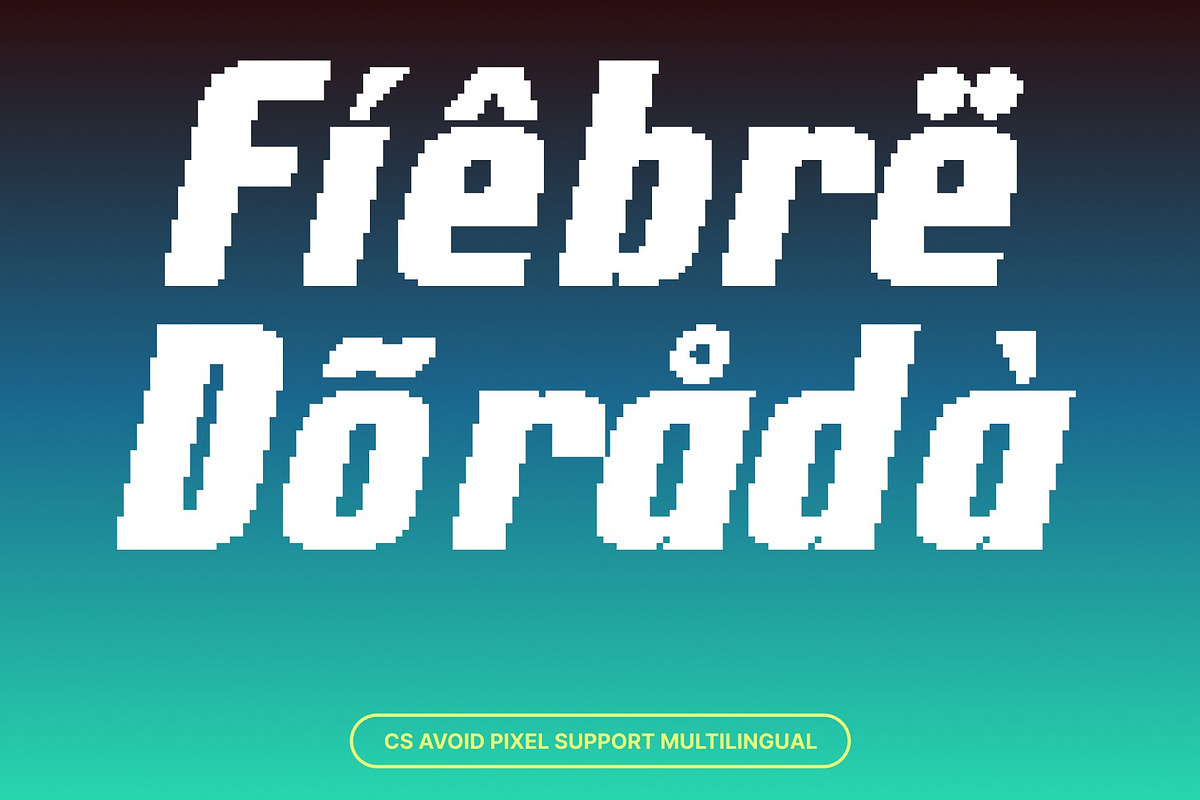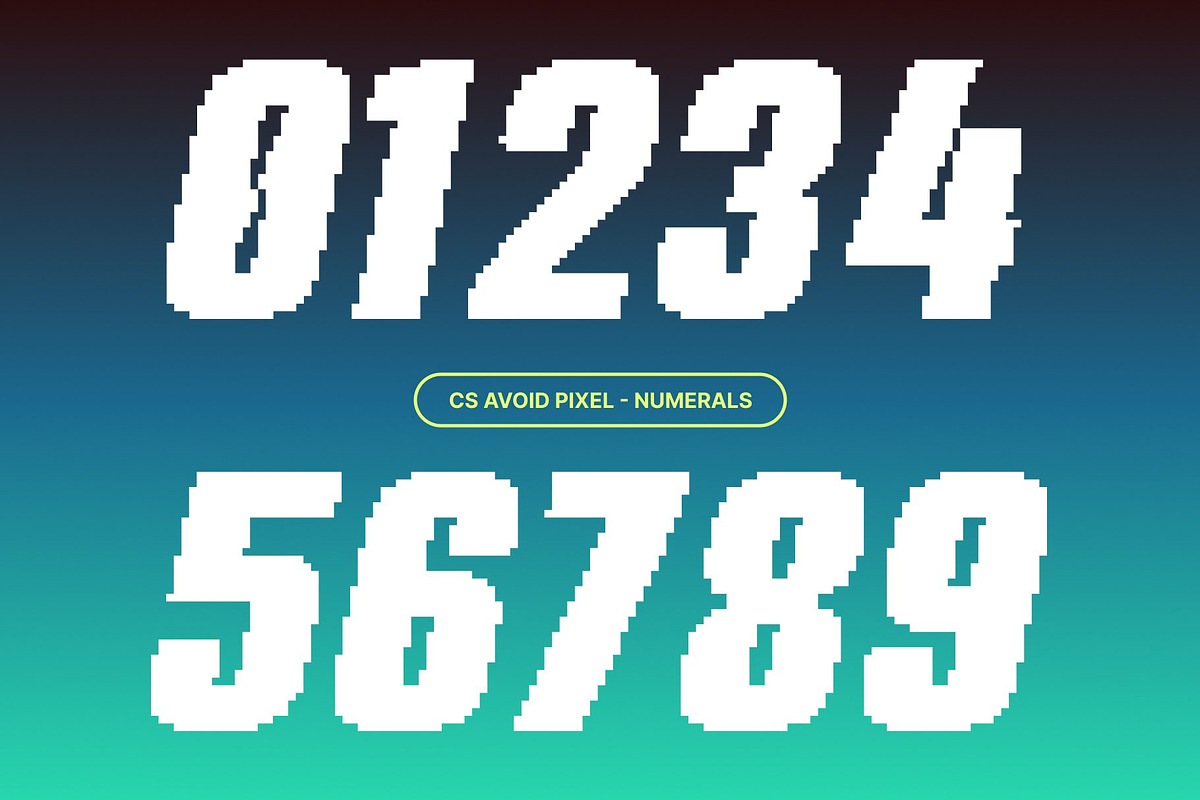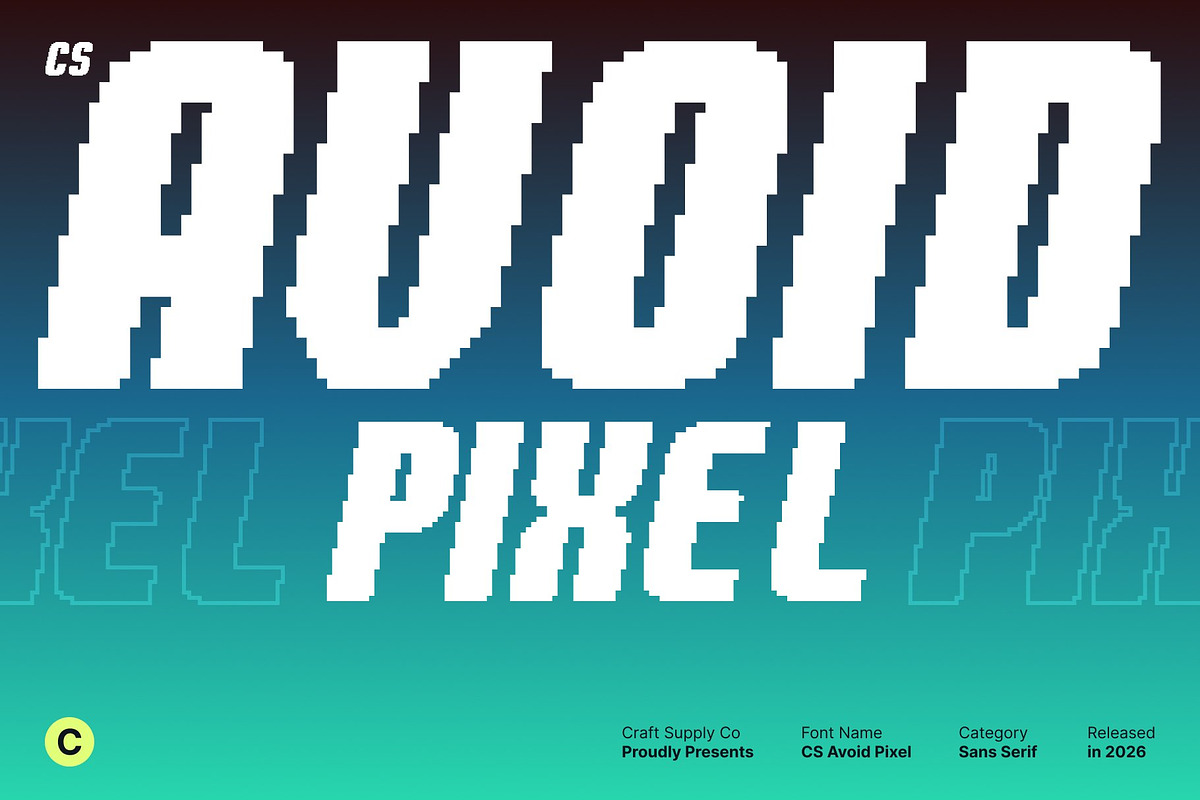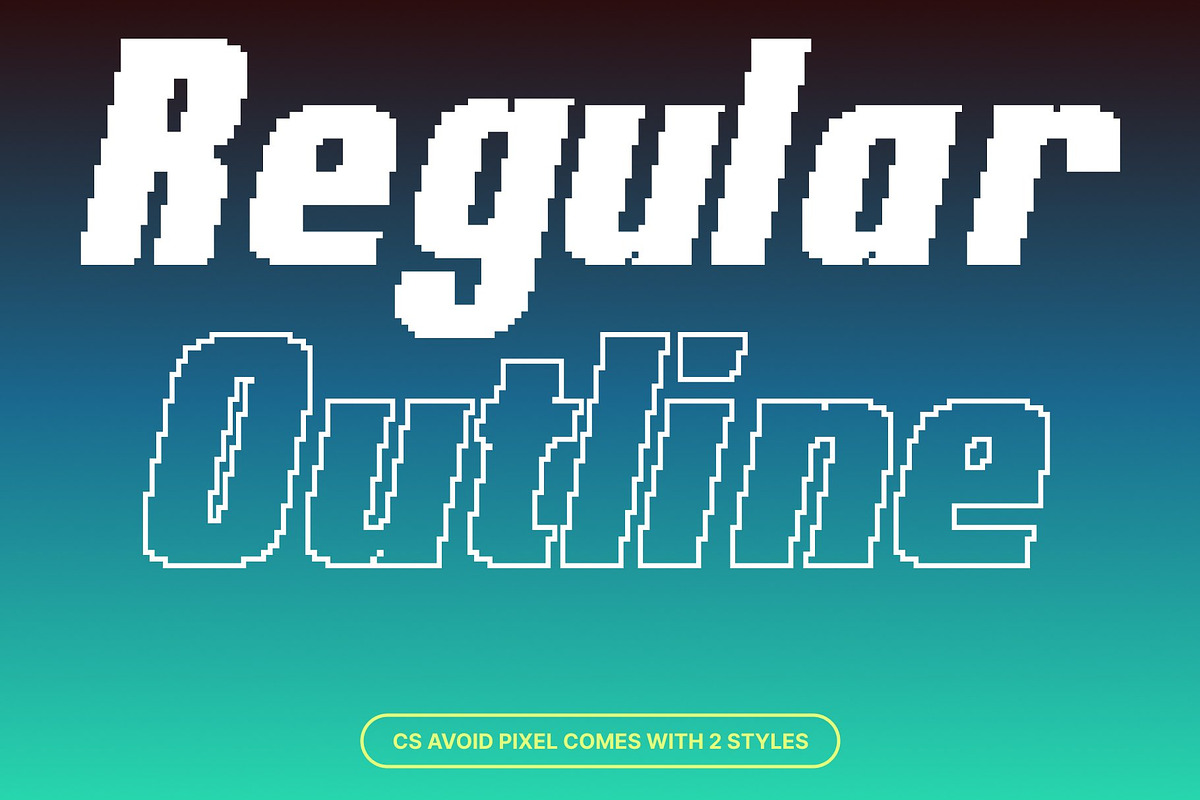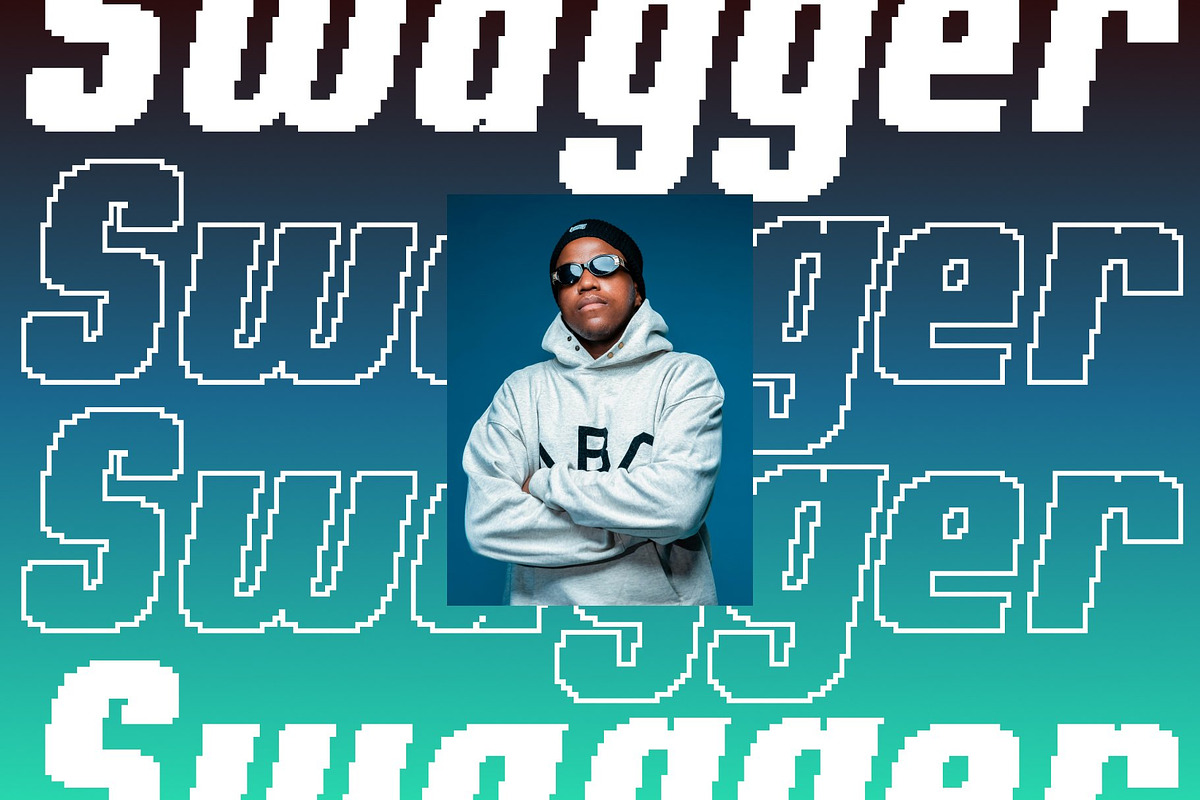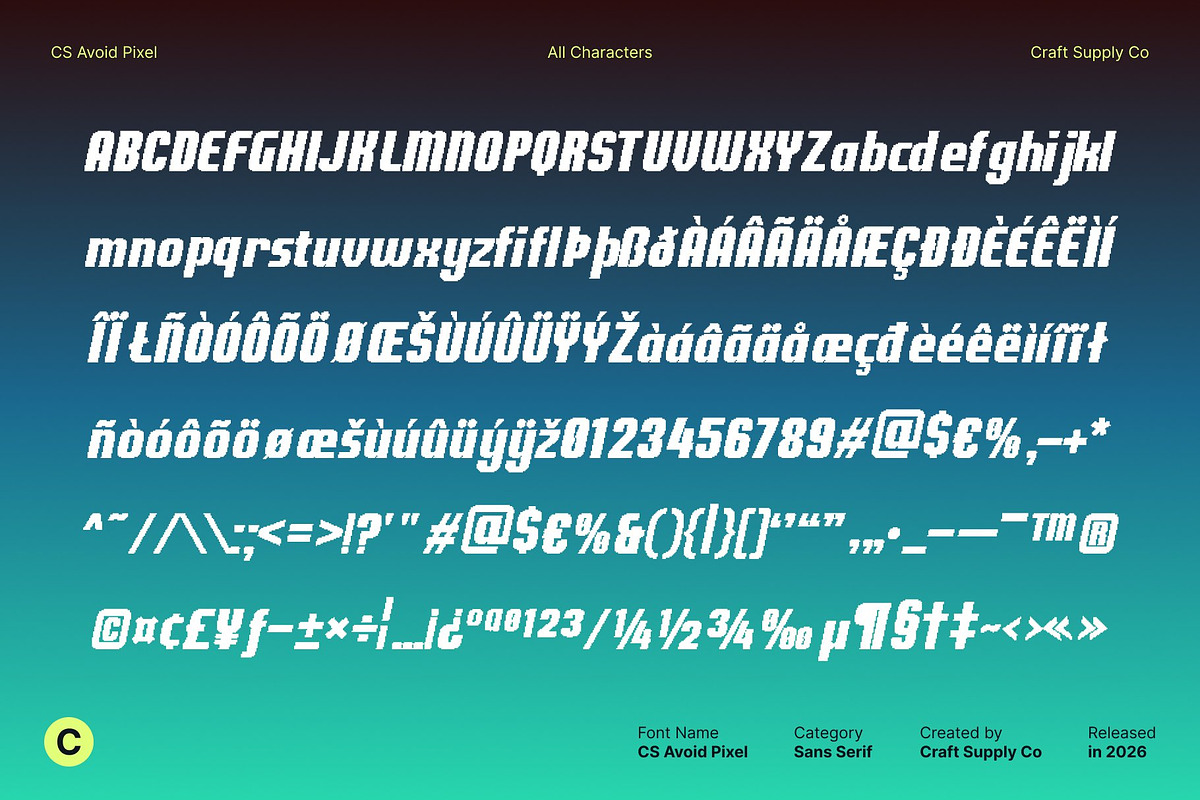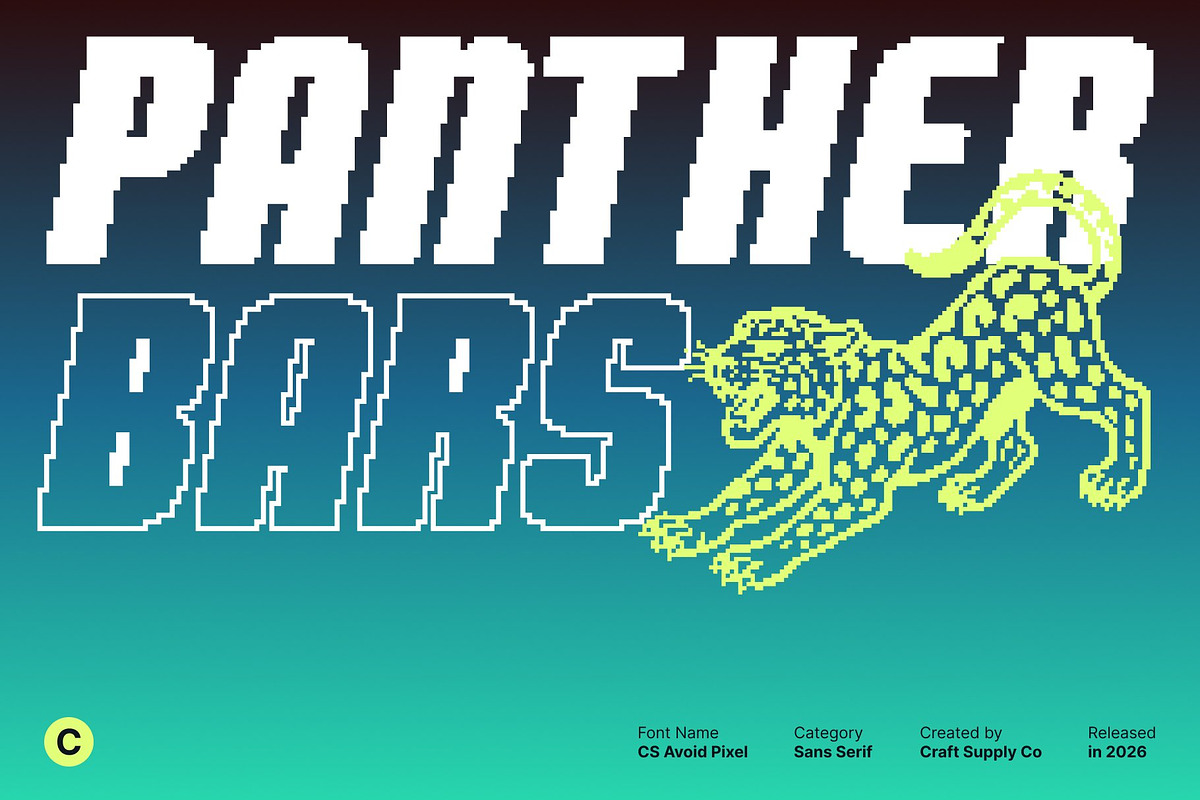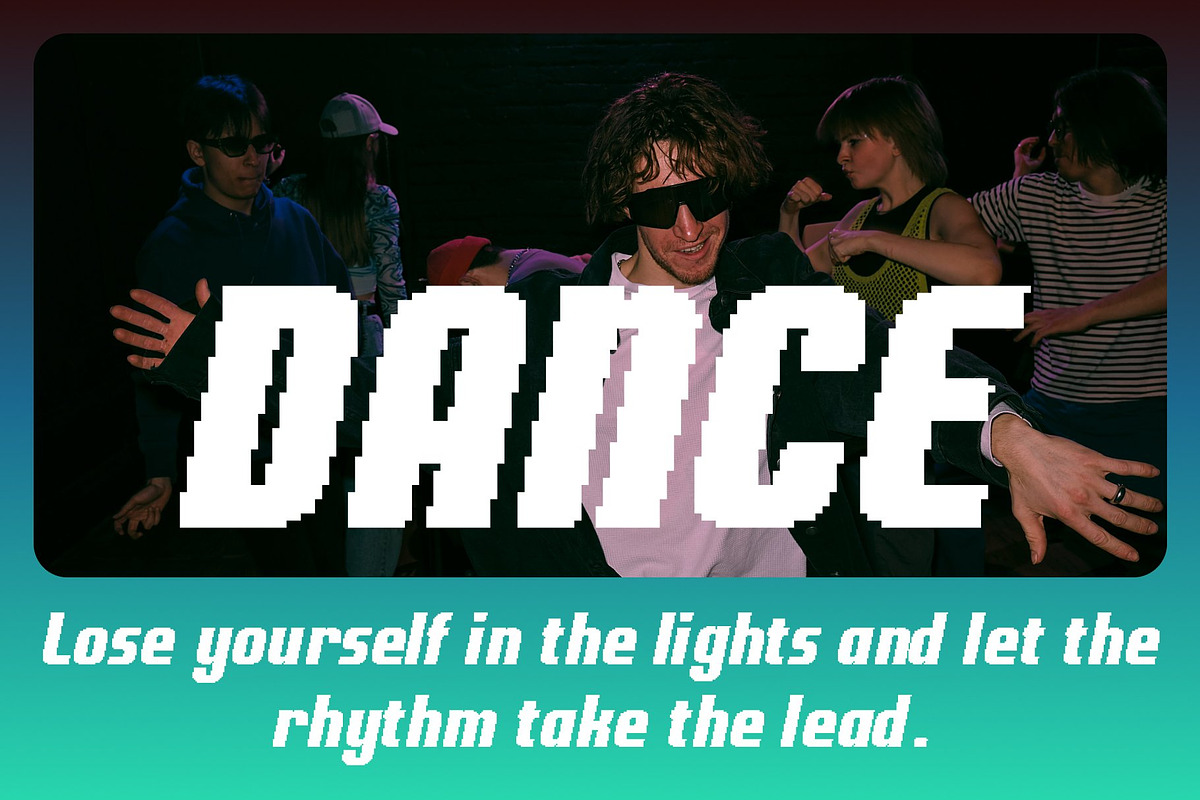
CS Avoid Pixel
CS Avoid Pixel – Condensed Sans Serif Font: Maximum Impact, Minimal Space
Condensed Strength with Digital Pixel Character This is a modern condensed sans serif font built for strong visual impact in limited space, enhanced with a distinctive pixel style. Its narrow proportions and solid construction communicate confidence, precision, and efficiency, while the pixel details introduce a digital, old-school character. This blend creates a typeface that feels sharp, controlled, and visually powerful with a subtle retro–modern edge.
High Impact in Tight, Space-Driven Layouts Designed for space-conscious design, this font excels in headlines, banners, and compact layouts where clarity is essential. The condensed structure allows more characters to fit comfortably without losing readability, while the pixel styling adds texture and personality.
Clean Geometry with Retro-Digital Readability The font balances clean geometric construction with bold weight and pixel precision. Strong strokes ensure excellent legibility even from a distance, while the pixel elements evoke classic digital displays and early screen typography. This combination results in a font that feels modern, technical, and nostalgic at the same time.
Perfect for Modern, Urban, and Digital Branding This font is a strong choice for branding, advertising, posters, and digital visuals that require efficiency and attitude. Its condensed form, bold presence, and pixel-driven aesthetic make it especially effective for modern brands, tech visuals, urban designs, and projects seeking a retro digital vibe with contemporary strength.